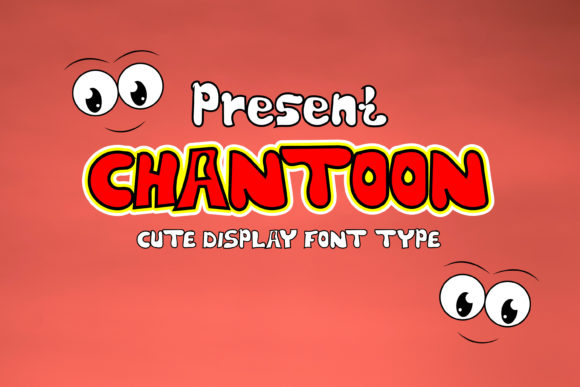
Hold up, traveler of the digital world! Get ready to witness the grooviest font that'll make your designs dance to the rhythm of awesomeness – introducing the Chantoon Font!
Picture this: a font so chill, it's like a hippie rocking out in the breeze. Its wavy lines and psychedelic curves will make your designs sing a chorus of coolness. Whether you're crafting posters that scream radical or flyers that announce your next groovy gathering, Chantoon Font has got your back.
Get ready to explore a world of endless possibilities with this display font. It's like unleashing a kaleidoscope of typography, ready to transform your designs into a vibrant explosion of color and style.
And here's the mic drop: Chantoon Font is the undisputed champion when it comes to small display. It's like the superhero of tiny type, squeezing in maximum impact without missing a beat.